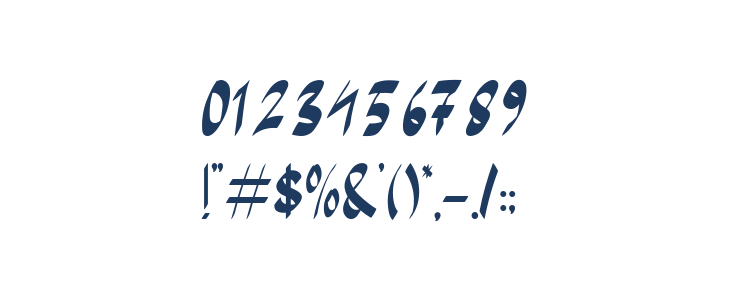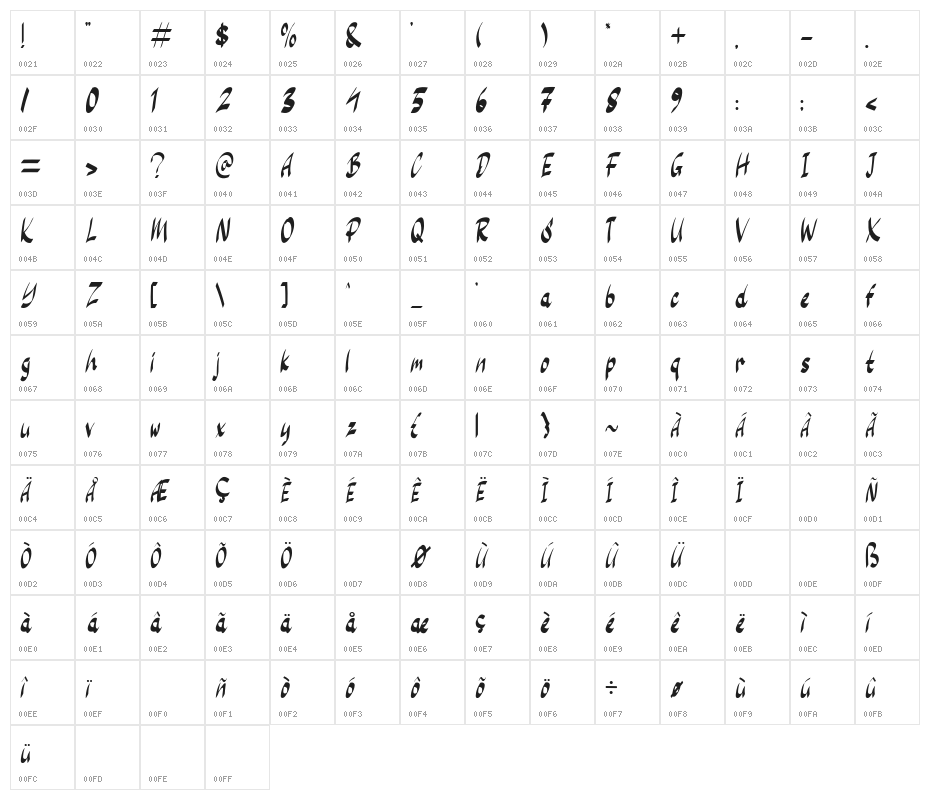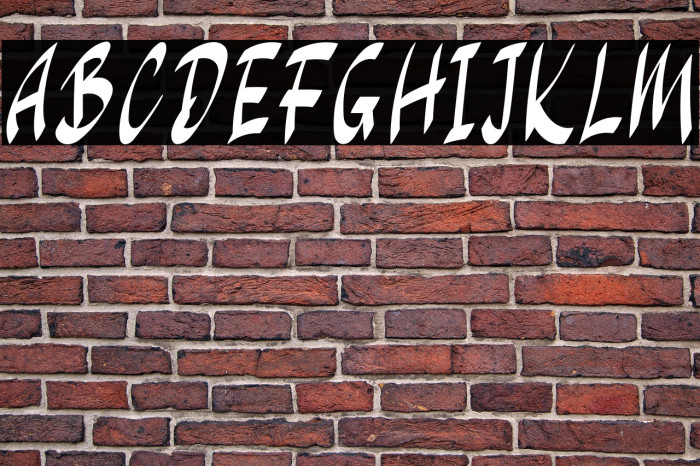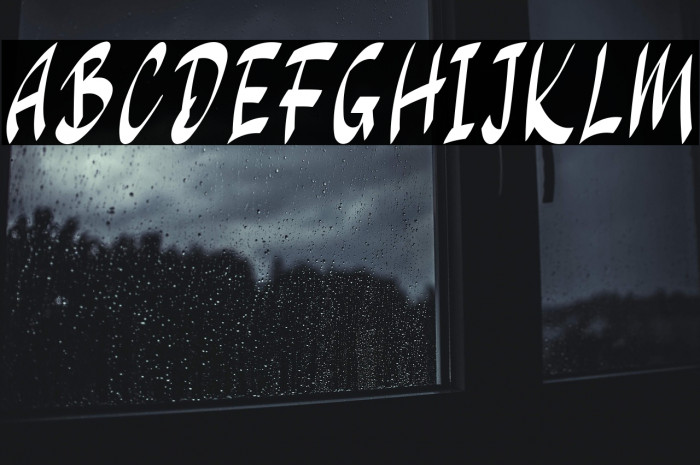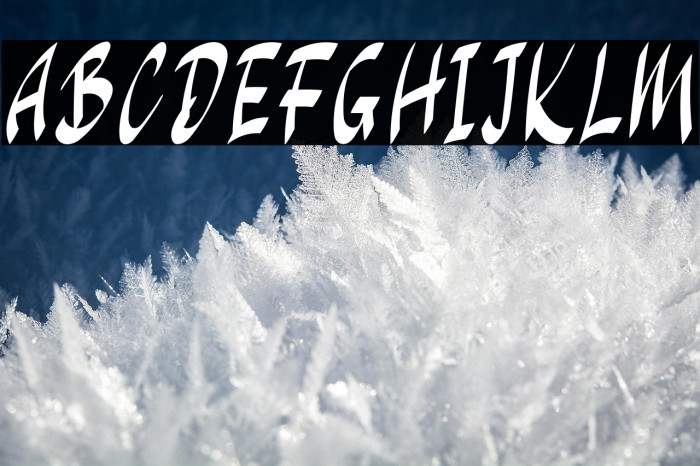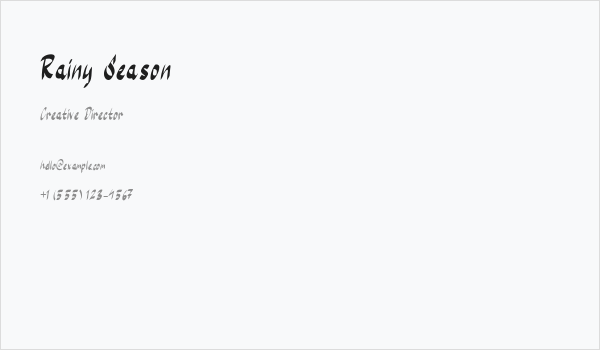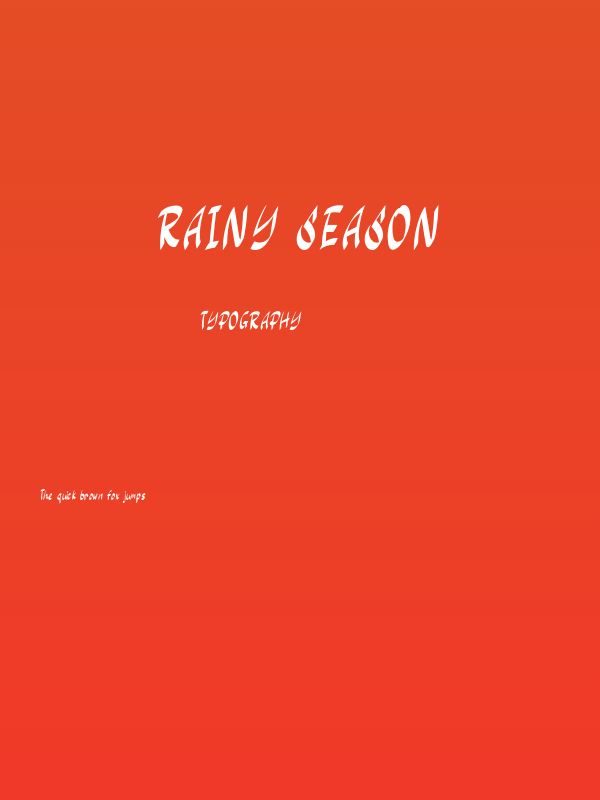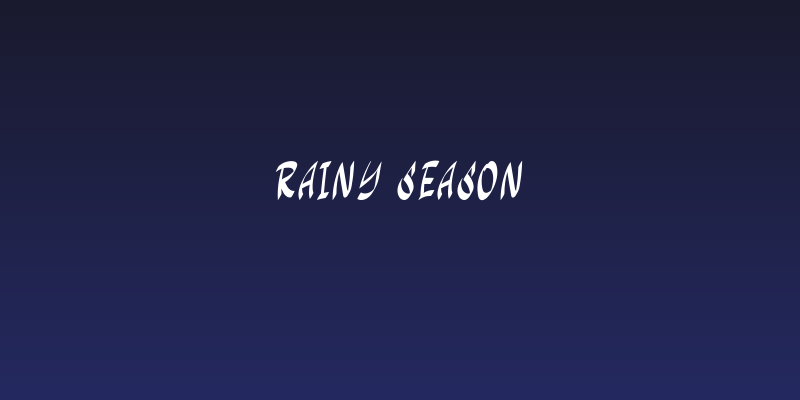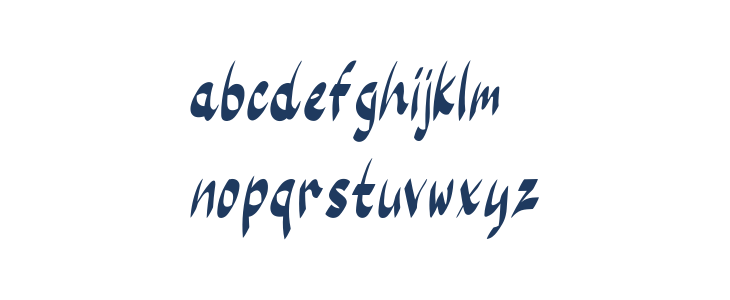
Rainy Season Font
Rainy Season Description
This font features a dynamic and expressive style, characterized by its bold, sweeping strokes and a sense of movement. The letters have a slightly slanted orientation, giving them a handwritten, cursive appearance. The uppercase letters are particularly striking, with exaggerated curves and sharp angles that create a sense of drama and flair. The lowercase letters maintain a consistent flow, complementing the uppercase with their smooth, rounded forms. The numerals and special characters are designed with the same boldness and fluidity, ensuring a cohesive look across all elements. This font's unique style makes it stand out, offering a blend of elegance and energy.
| Proposed Projects | Ideal for creative projects such as logo design, branding, invitations, and artistic posters. |